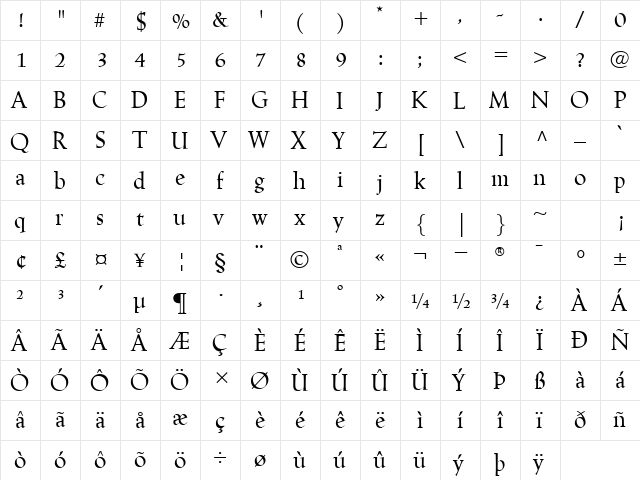
LinotypeTrajanus Roman
Design Context for LinotypeTrajanus Typeface
LinotypeTrajanus offers clean, dependable letterforms without strong stylistic allegiance, making it a practical choice for designers who need flexibility.